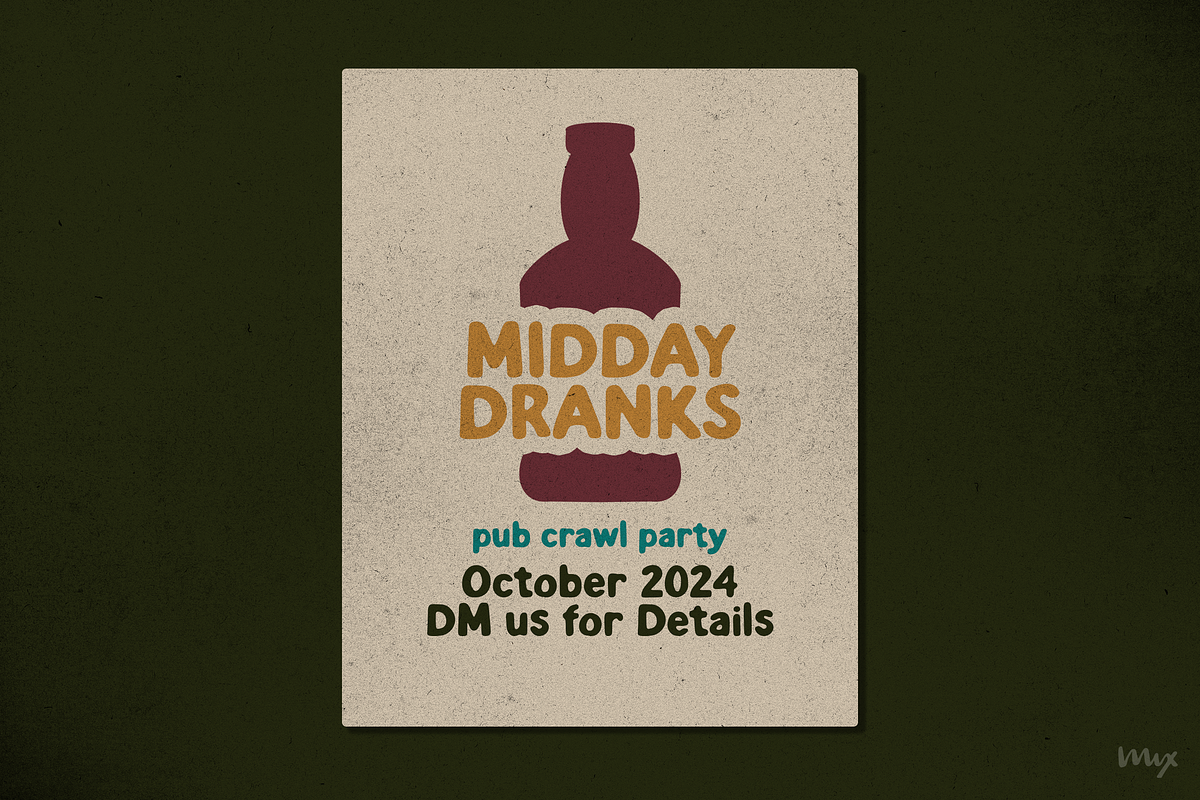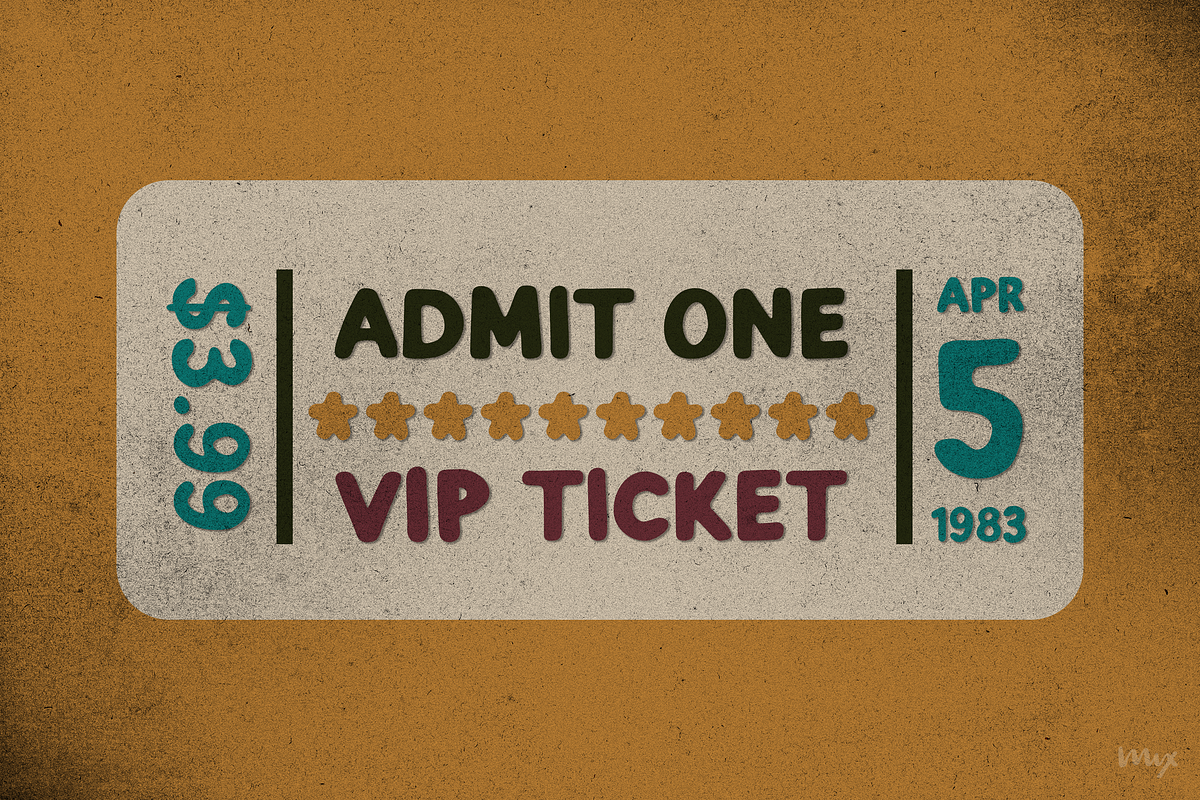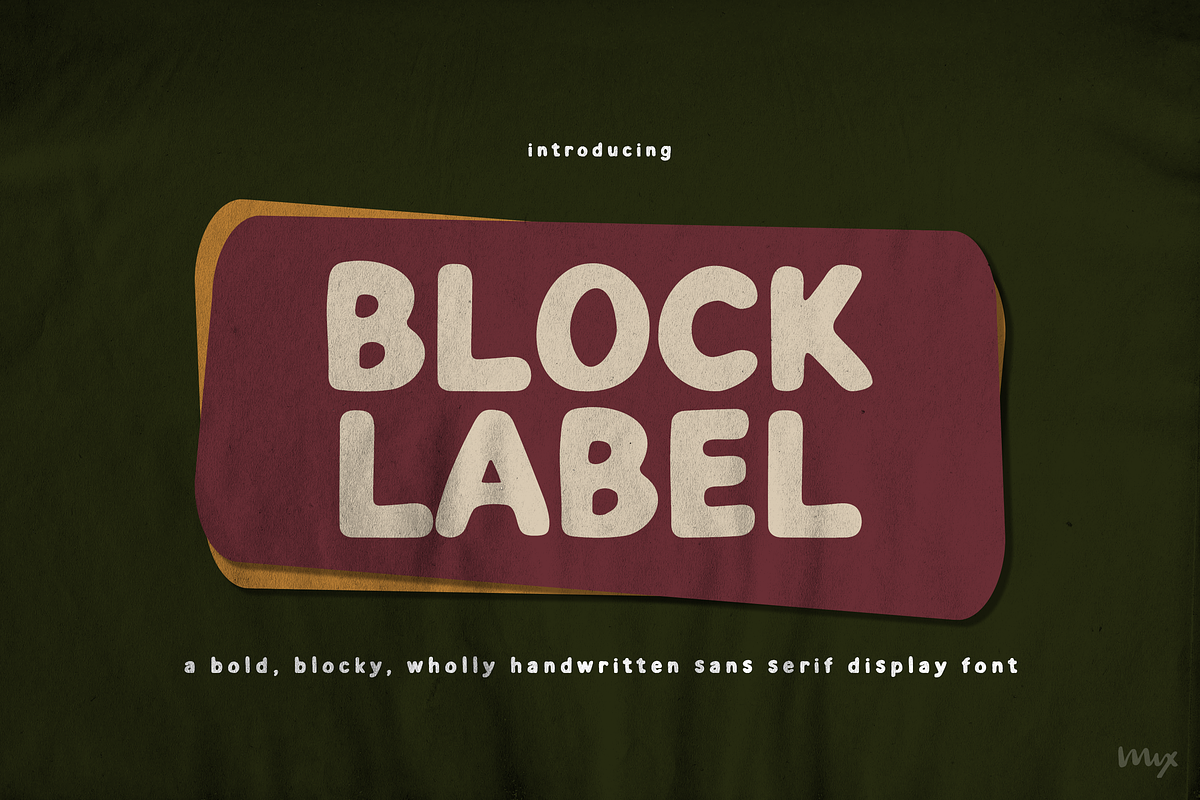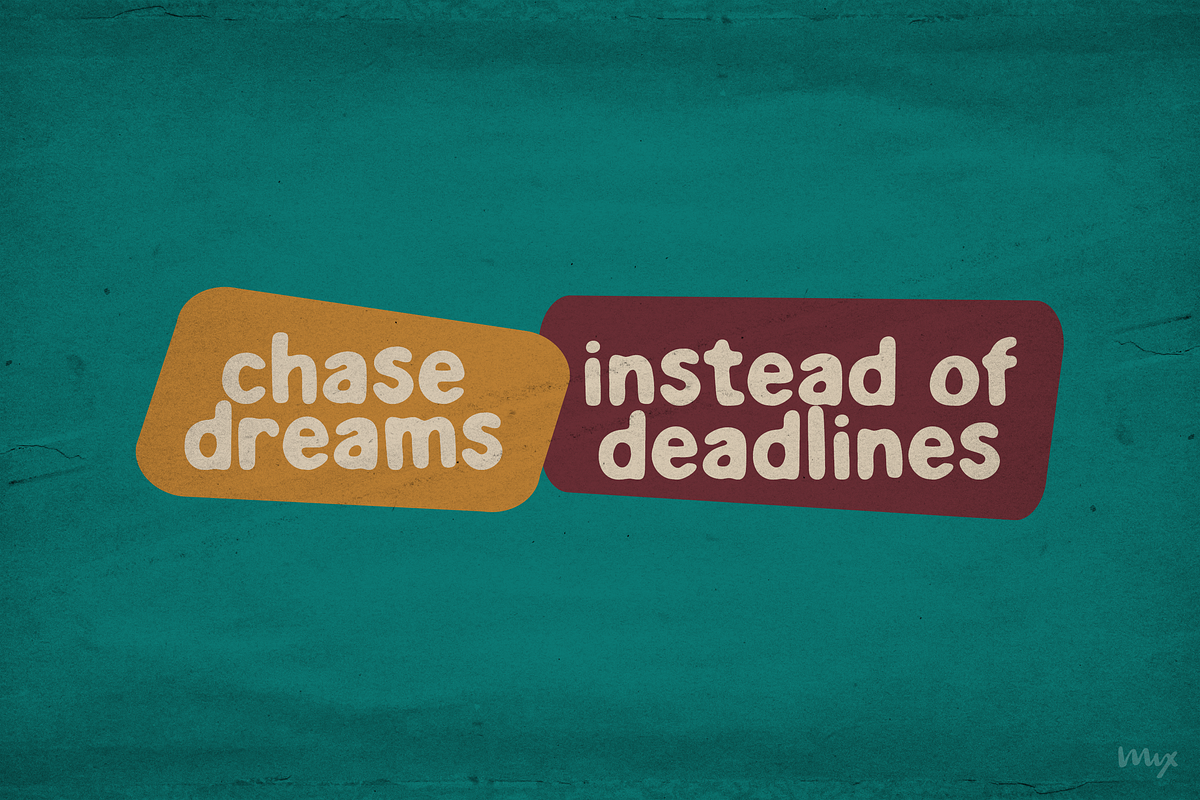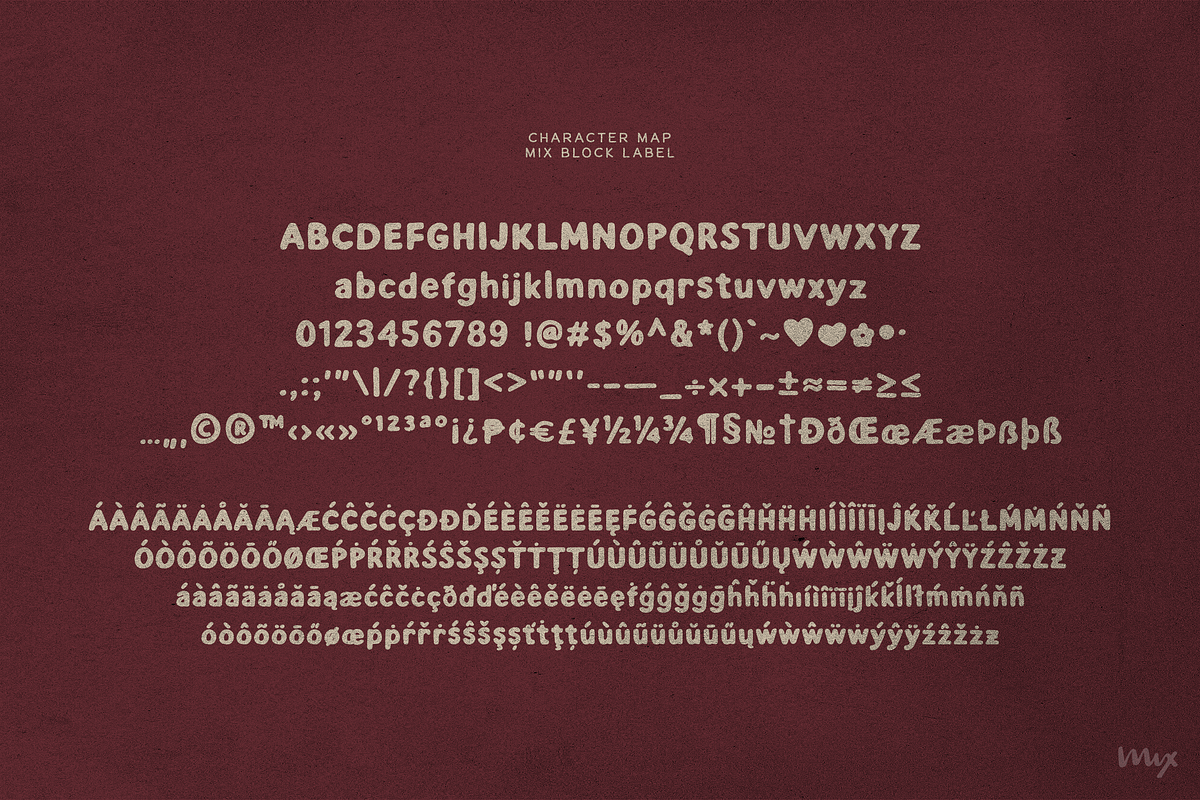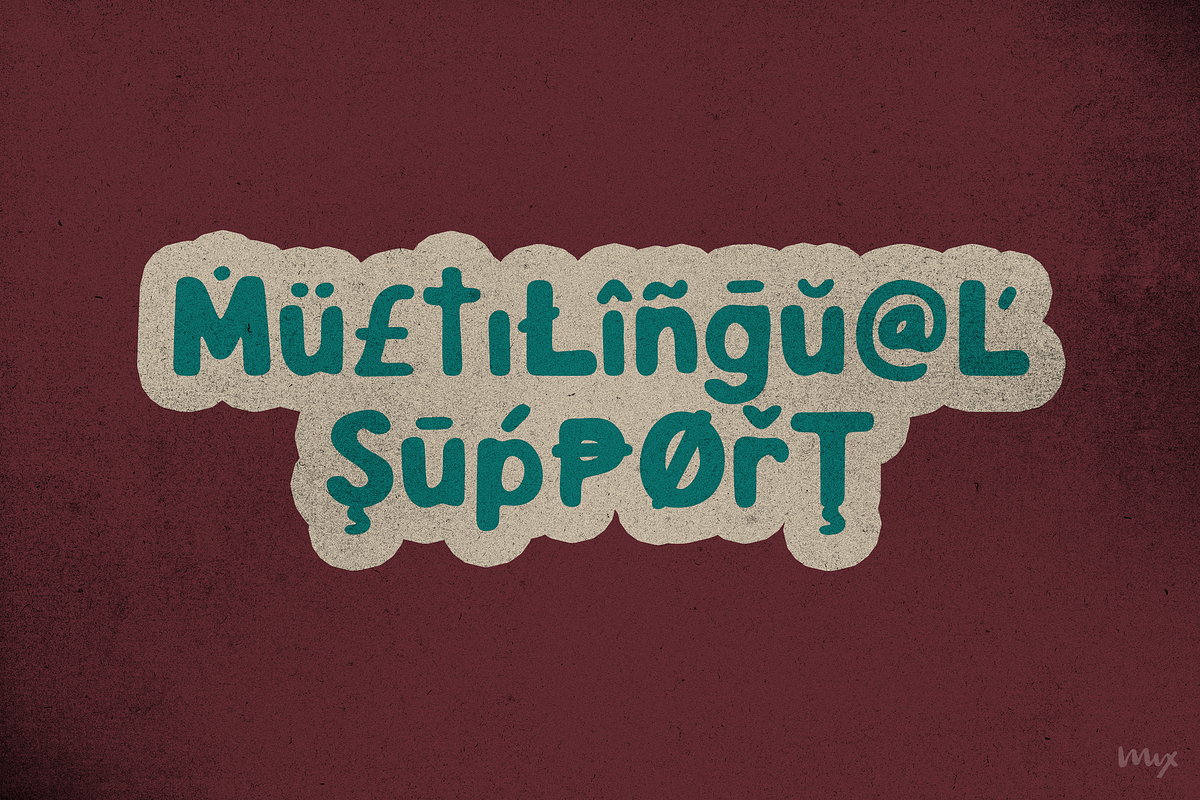
Block Label — Handwritten Sans Serif
Discover BLOCK LABEL, a meticulously crafted sans serif display font tailored for impactful packaging design. Bold, blocky, and wholly handwritten, BLOCK LABEL strikes the perfect balance between strength and sophistication, ideal for makers seeking to elevate their brand presence.
With its clean lines and versatile character set, BLOCK LABEL offers multilingual support and complete characters, ensuring seamless integration into packaging projects worldwide. Whether used in all uppercase for commanding labels, mixed case for added versatility, or as bold headlines for eye-catching posters, BLOCK LABEL delivers a powerful statement with every application.
Designed to captivate and convert, BLOCK LABEL is engineered for maximum readability and impact, making it perfect for bold packaging statements and attention-grabbing headlines that demand attention on shelves, screens, or in print. Elevate your brand presence with BLOCK LABEL and stand out in the competitive marketplace.